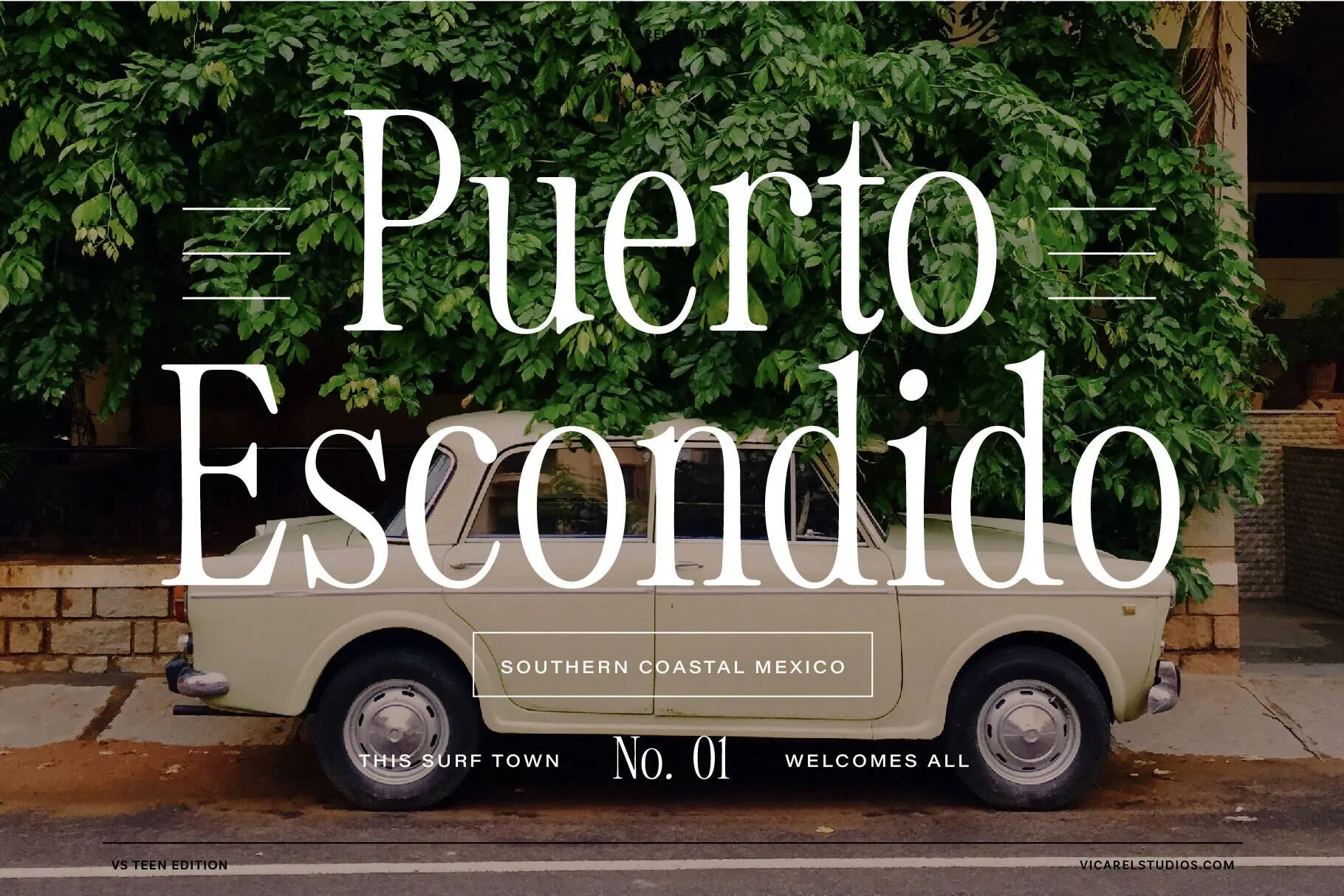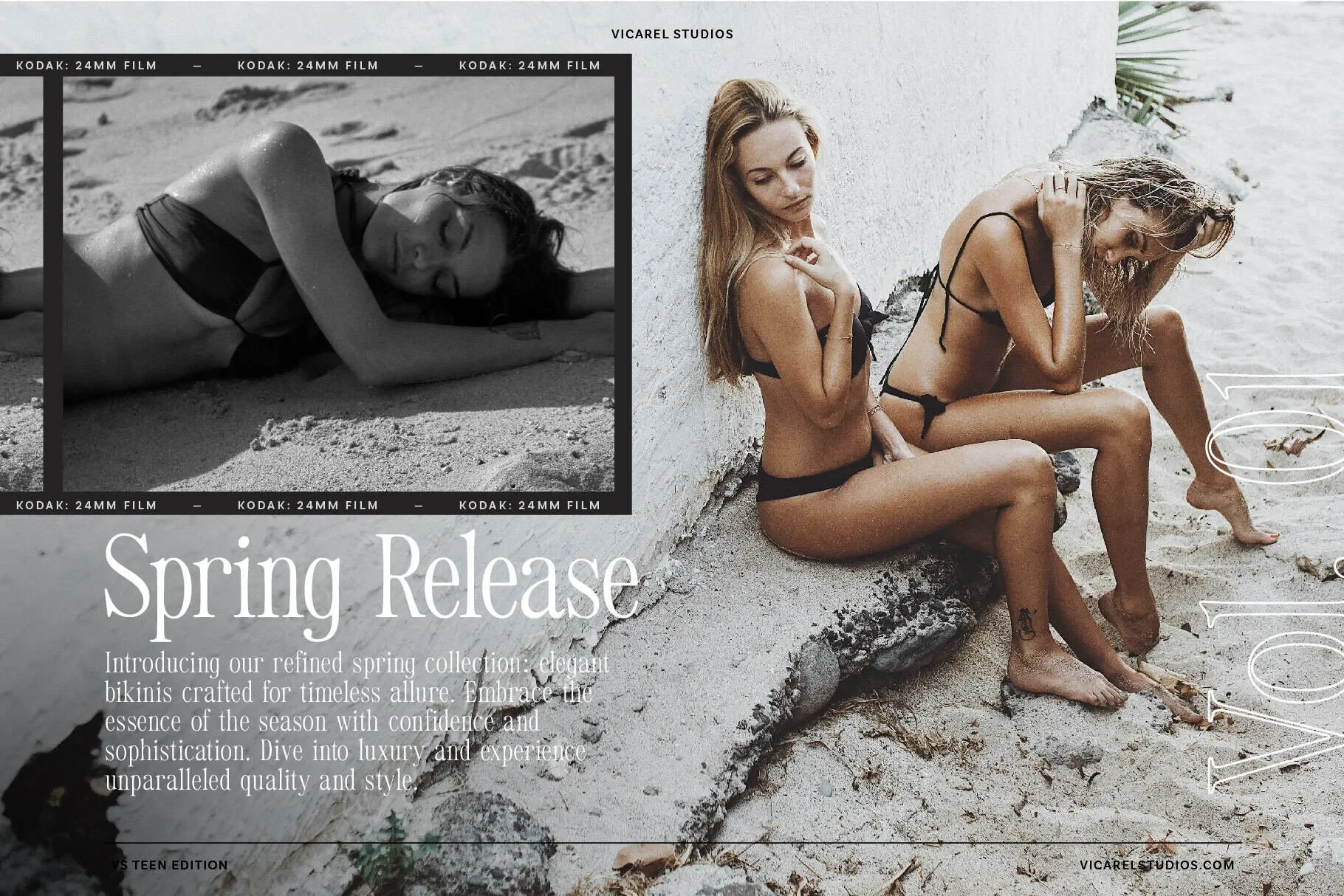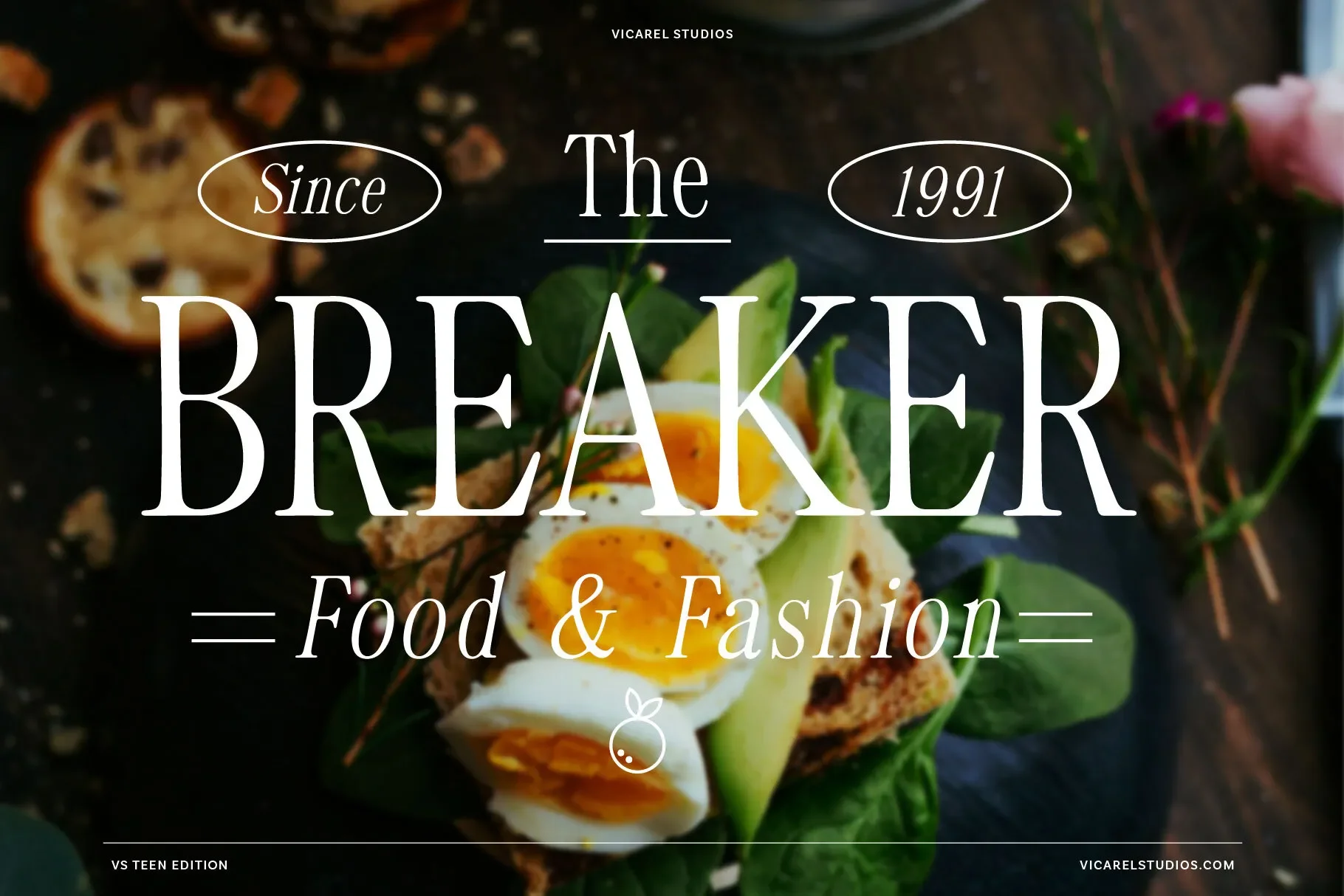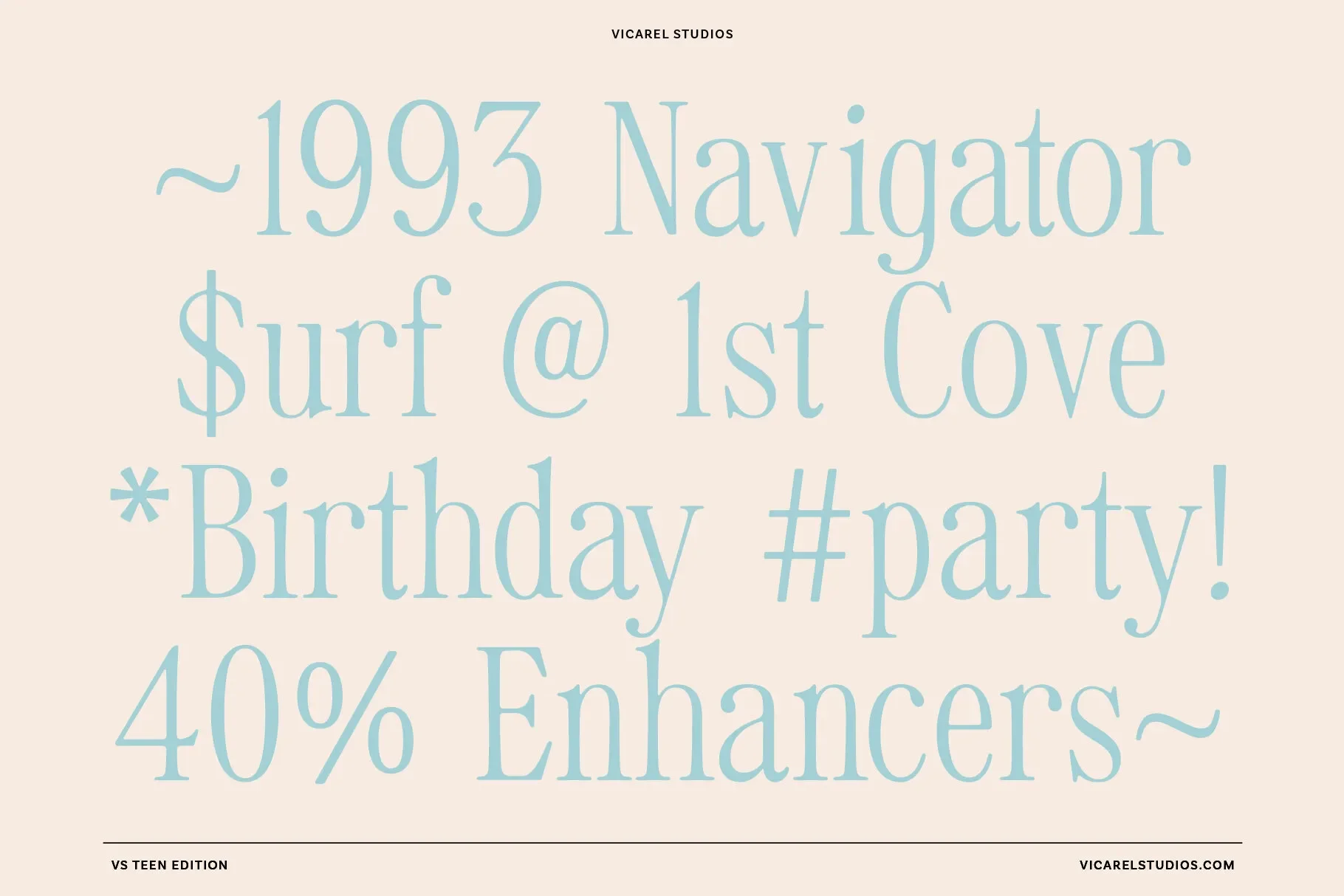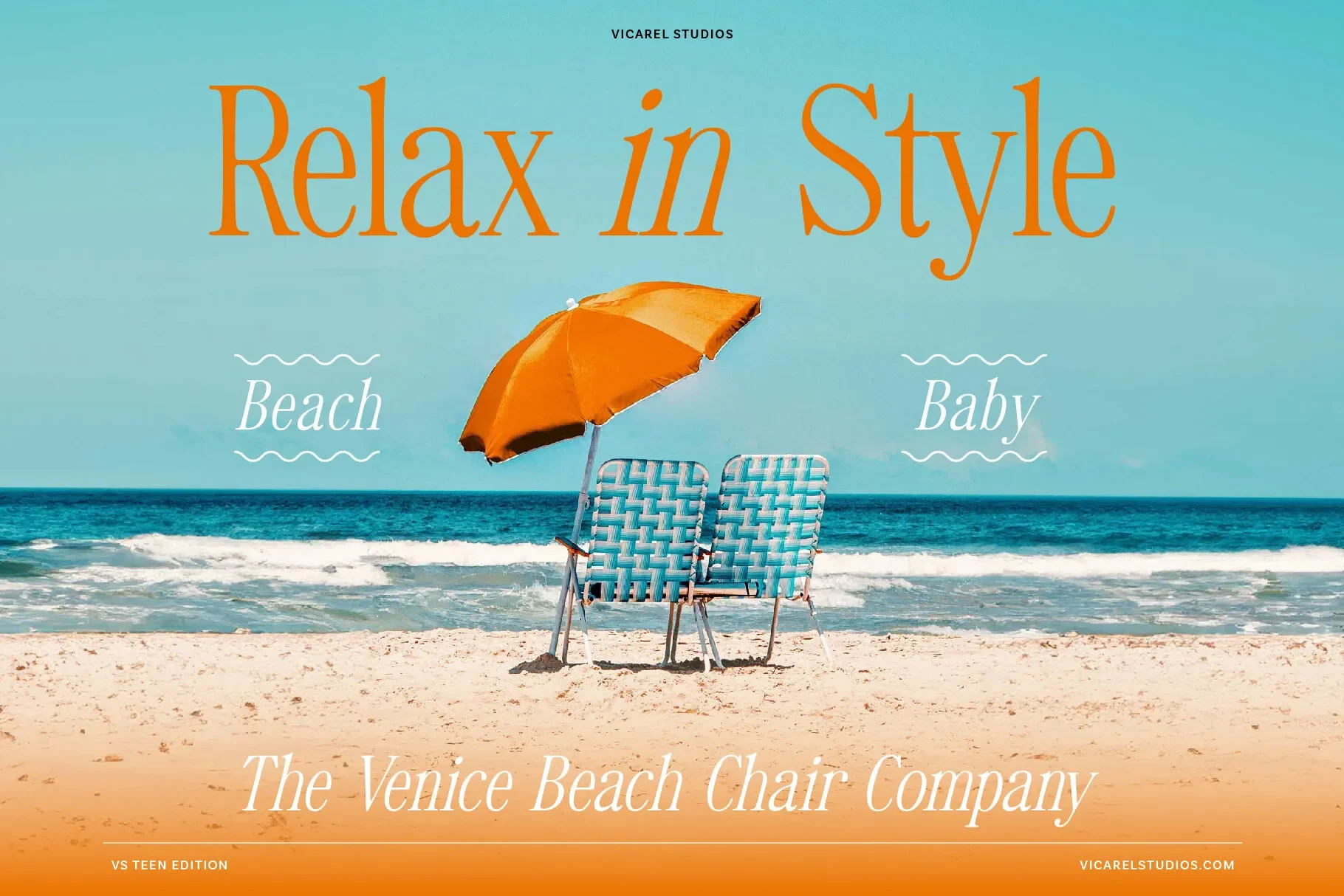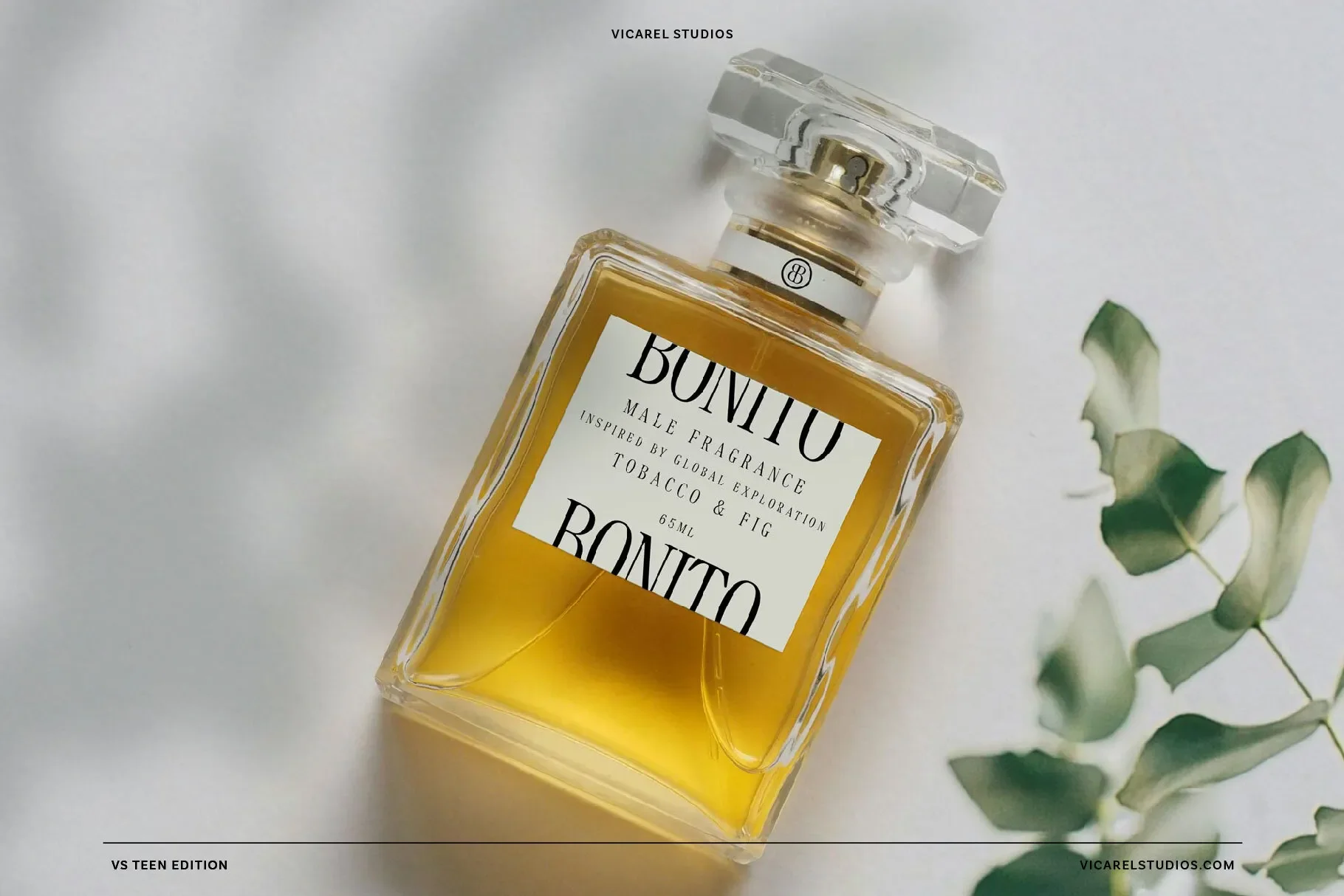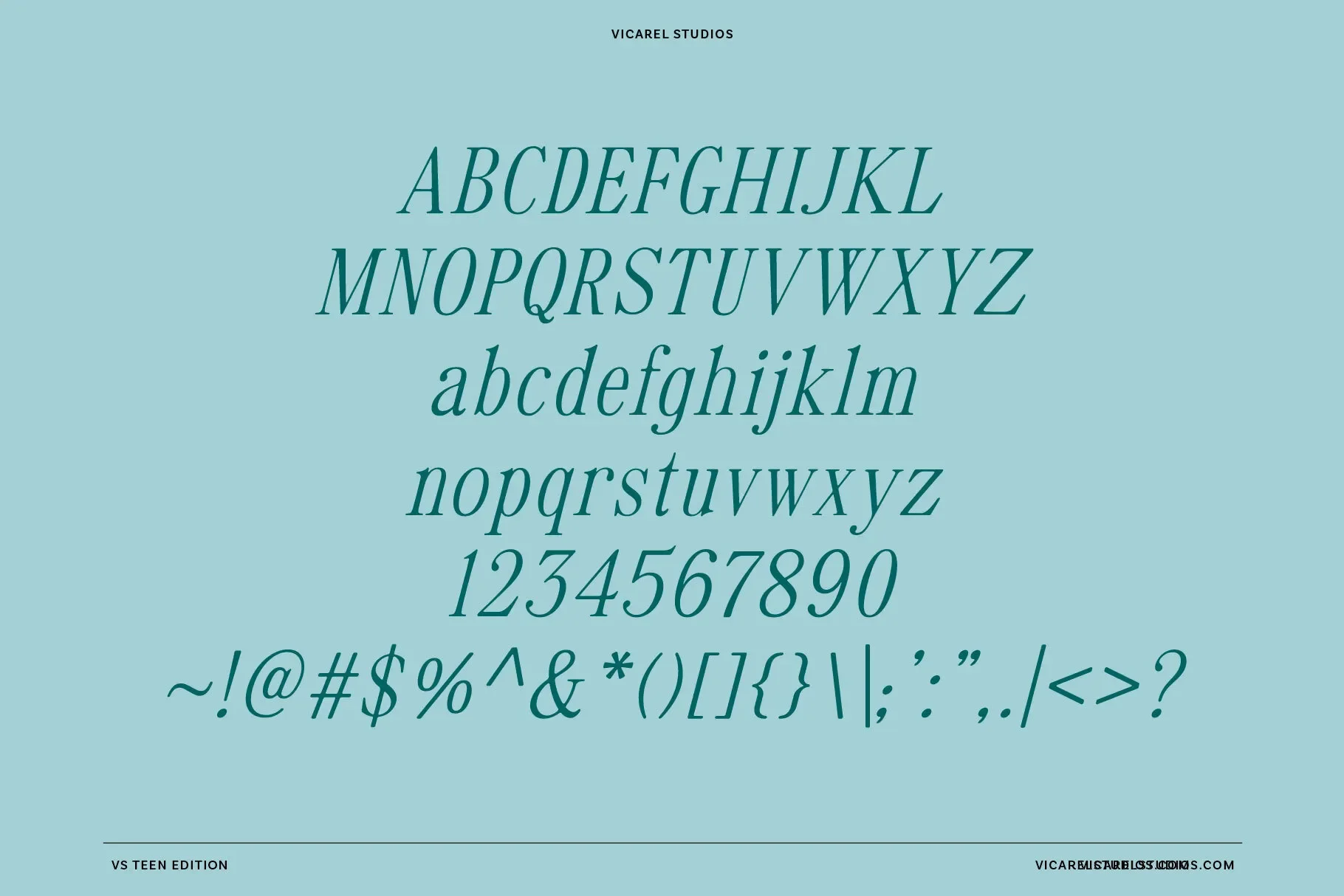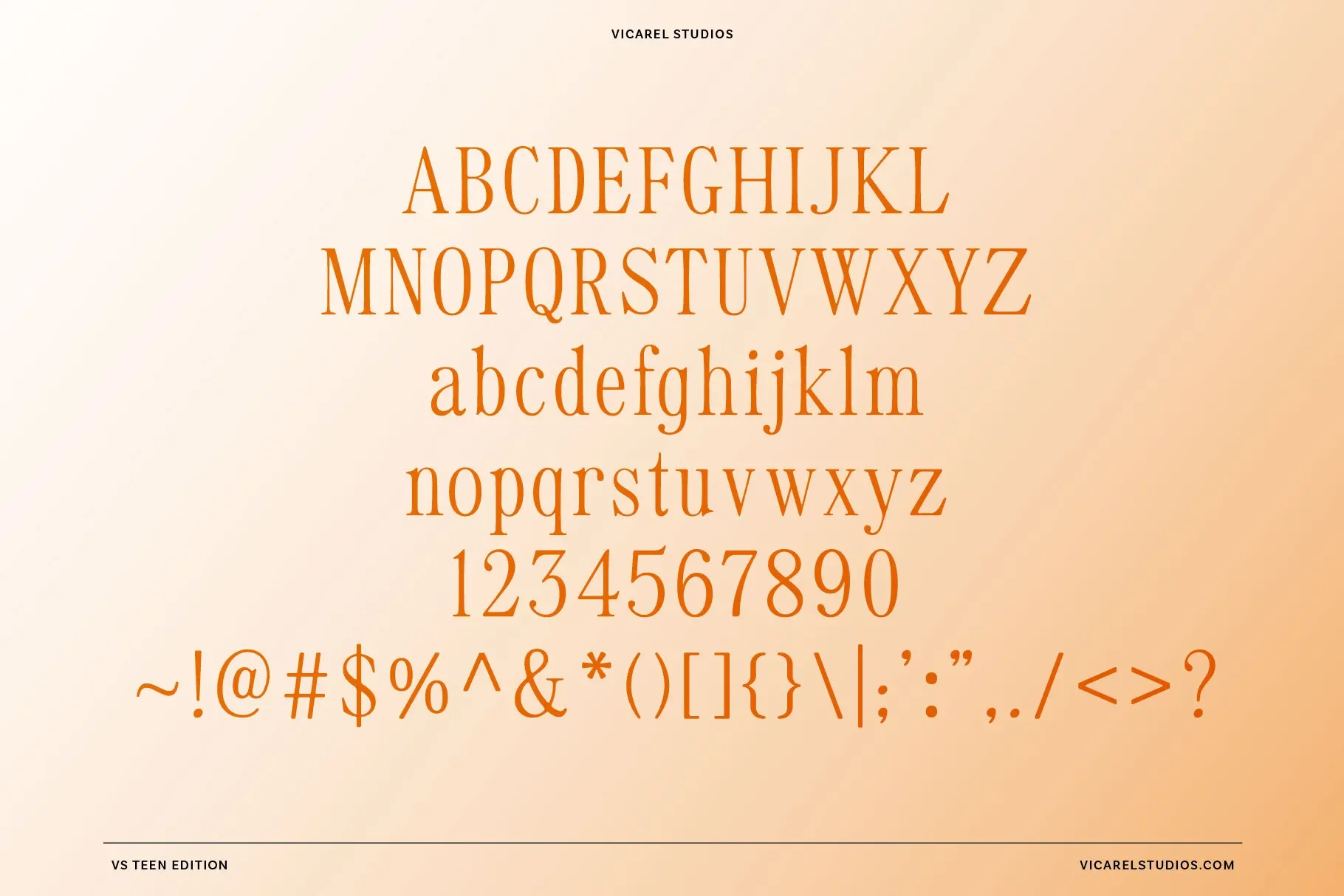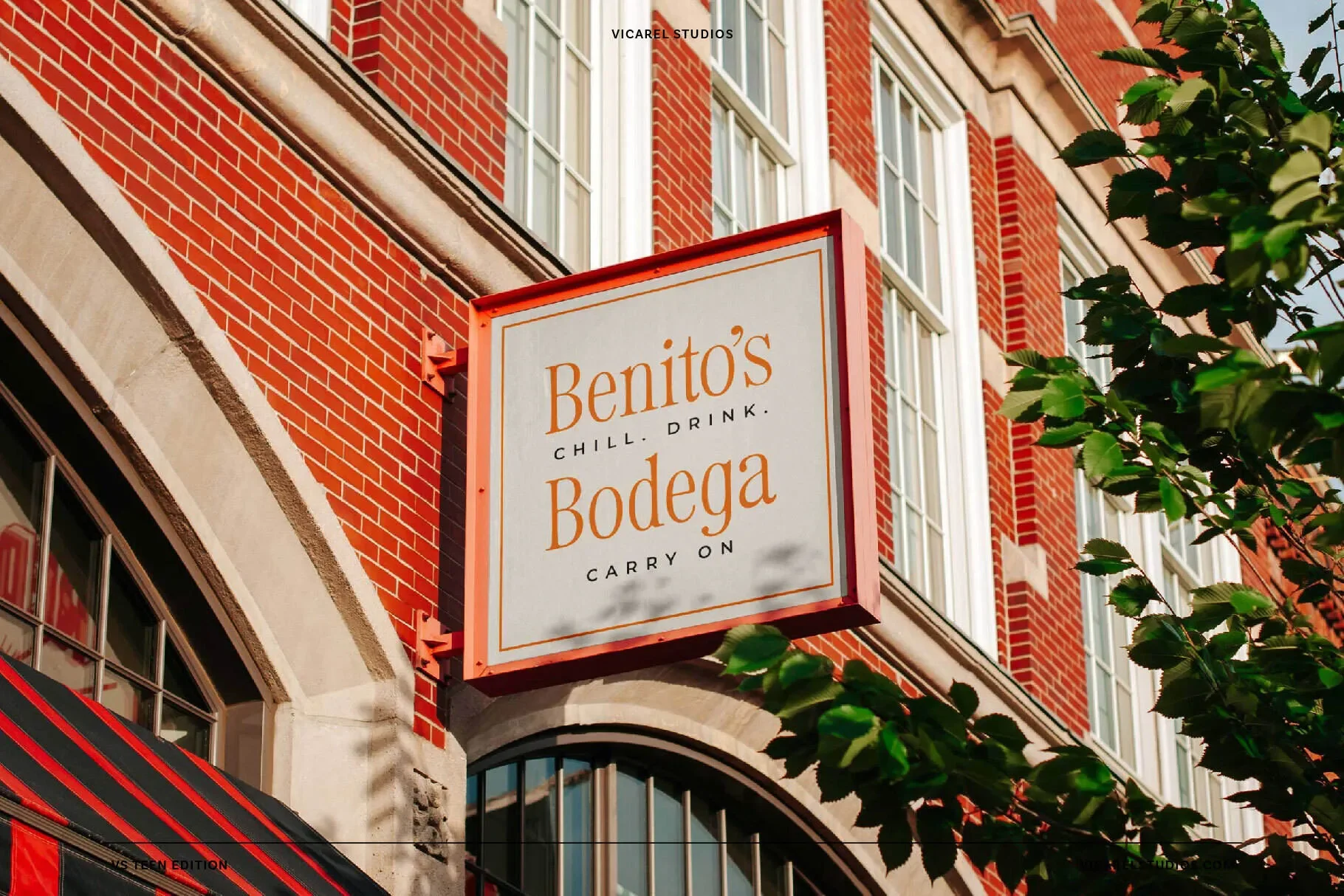
Teen Edition: A Retro Serif Font
VS Teen Edition is inspired by being born in the 80s, growing up in the 90s, and being confused in the 2000’s, this retro serif font is great for editorial design, branding, apparel, packaging and a whole lot more.
This vintage retro font is inspired by editorial magazine fonts and newspaper fonts.
About the Font
A font that elegantly channels the nostalgia of years past while seamlessly integrating modern design elements. Inspired by the timeless appeal of retro and vintage fonts found in magazines and newspapers from the 1970s to the 2000s, this font captures the essence of classic typography with a contemporary, new-aged twist.
VS Teen Edition is a soft, hand-drawn modern serif, offering a blend of sophistication and approachability. Each character is unique, featuring smooth curves and refined details that evoke a sense of refined elegance for your next project.
Whether used for editorial layouts, branding materials, apparel design, or posters, VS Teen Edition adds a touch of timeless charm to any graphic project. Its versatility allows it to adapt to various design contexts while maintaining its distinct personality — high end or high touch, it does the job!